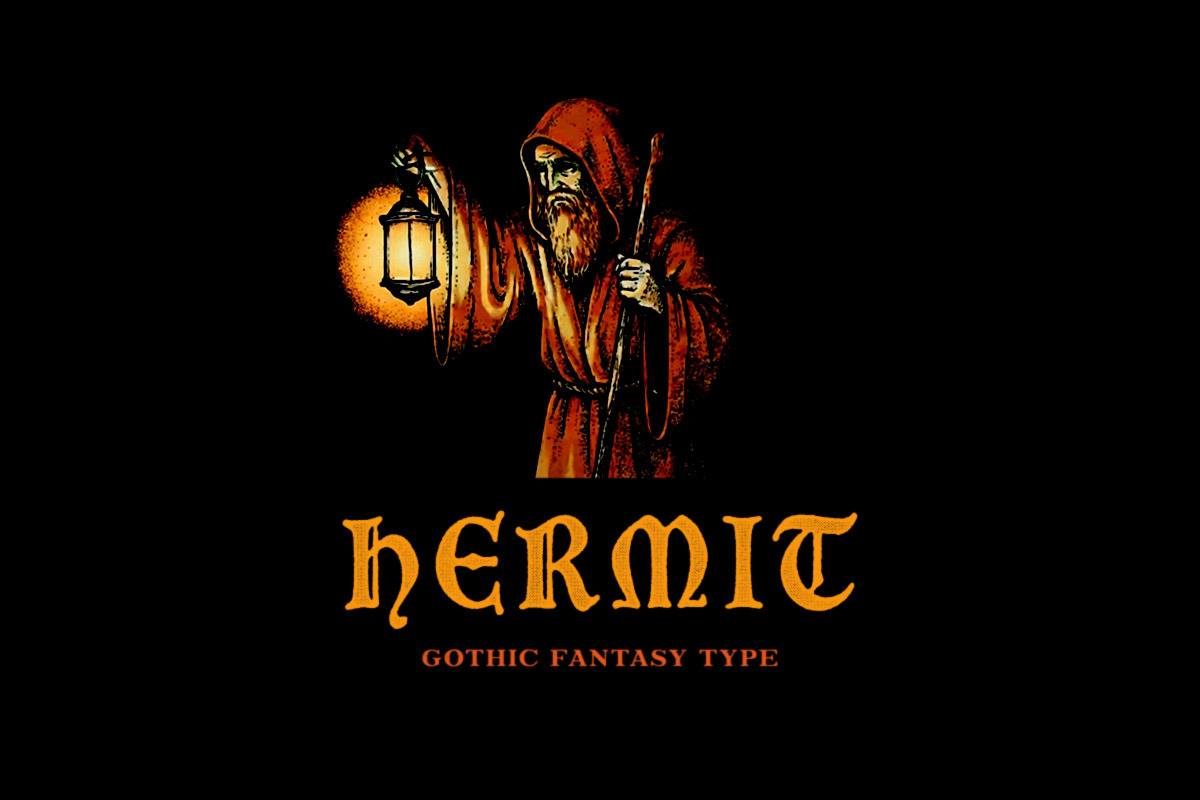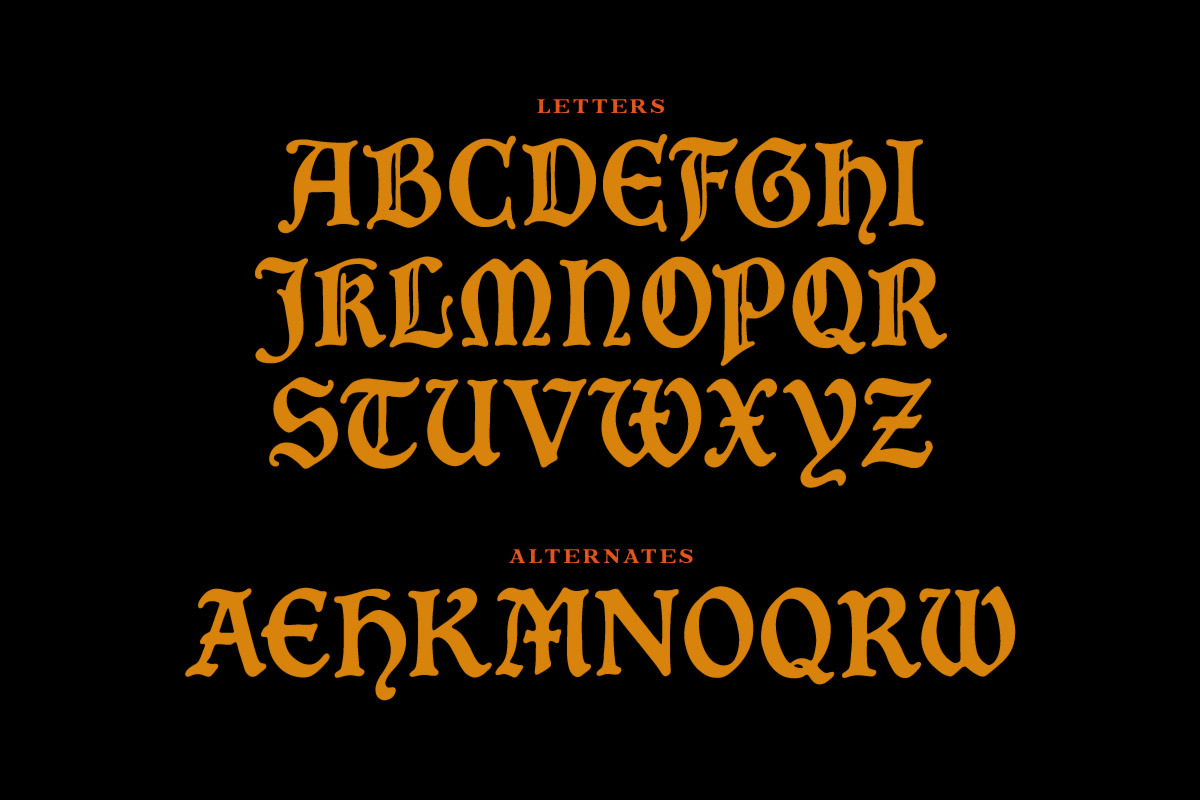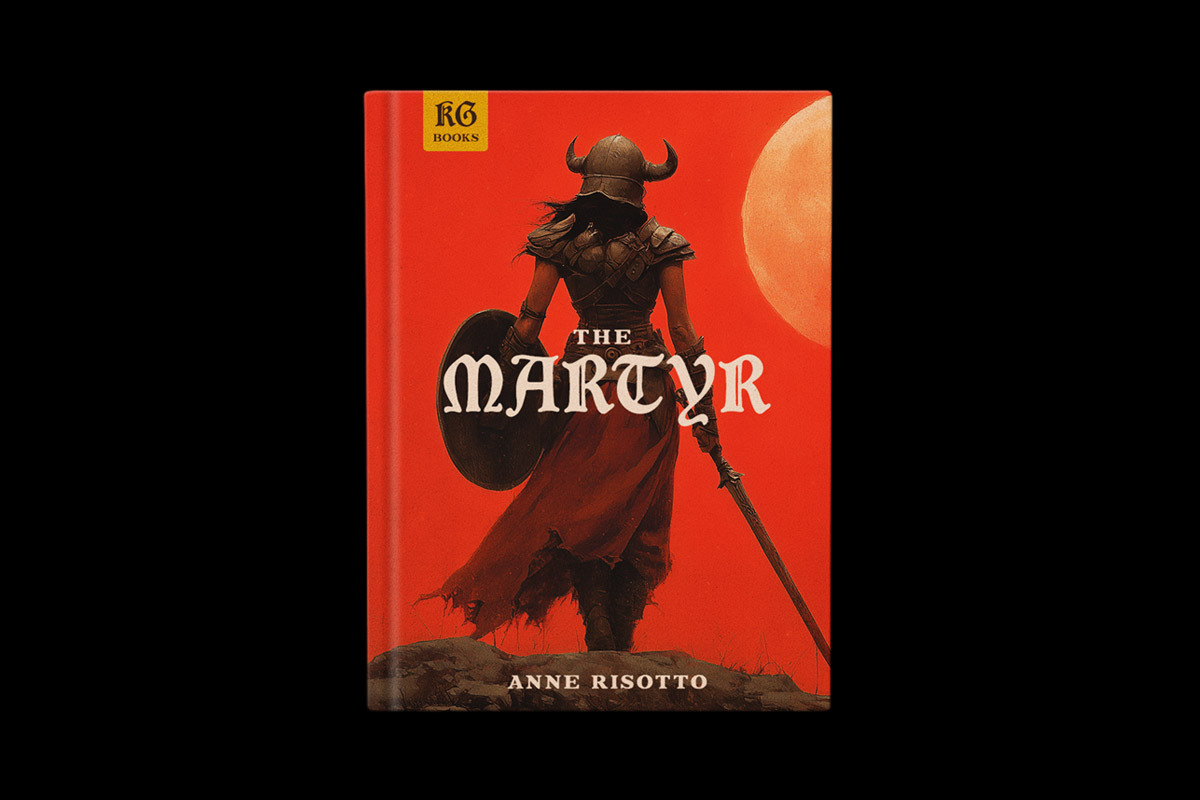
Hermit Typeface
Cinder is a classic gothic display typeface with sharp medieval letterforms and a timeless dark atmosphere. Perfect for fantasy book covers, gothic logos, posters, branding, album artwork, and editorial designs.